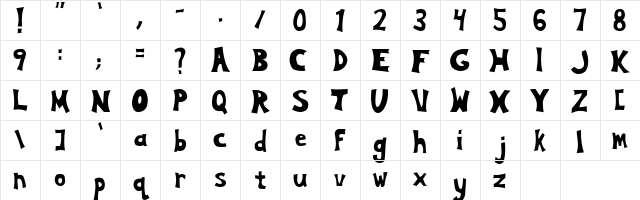
Silly Annie normal
Style: normal
Complete Silly Annie normal glyph index. Displaying only characters natively supported by Silly Annie normal font.
Design Context for Silly Annie
Silly Annie is a composed and adaptable typeface that performs quietly and consistently across a wide range of design contexts.